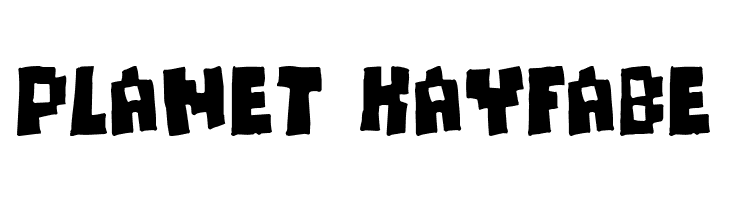
A tall, narrow font with high contrast and a modern, sophisticated style.
A decorative, dotted font with a digital, pixelated style.
A bold, expressive font with jagged, graffiti-like edges.
A bold, brush-style font with an energetic and handcrafted appearance.
A playful, handwritten font with bold, rounded strokes and a lively appearance.
A bold, jagged, hand-drawn style with a graffiti-like appearance.
A playful, smiley-adorned decorative font perfect for fun and engaging designs.
Hand-drawn, playful display font with a cartoonish vibe.
A playful collection of expressive character icons with bold outlines.
A bold, brush-like font with jagged strokes and an adventurous, dynamic style.
A playful, bold, and hand-drawn font with a cartoonish style.
A bold and dynamic font with a playful, energetic style.
A bold, fiery font with jagged, distressed characters.
A bold, fiery font with jagged edges, perfect for dramatic designs.
A bold, angular font with a dynamic, slanted design.
A bold, hand-drawn font with a playful and sketch-like appearance.
A bold, geometric font with a 3D effect, ideal for retro-themed projects.
A modern, slanted font with elongated characters and consistent stroke width.
A bold, brush-style script font with dynamic and expressive strokes.
A bold, hand-painted font with a textured, artistic style.
A bold, hand-drawn font with a rough, artistic texture.
A bold, decorative font with a hand-drawn, textured style.
A playful, hand-drawn style with a rough, textured appearance.
A bold, expressive handwritten font with dynamic strokes and a playful appearance.
A bold, textured font with a rustic, hand-drawn appearance.
A bold, playful font with a hand-drawn, pixelated style.
A bold, blocky font with rugged, irregular outlines and a distinctive edgy style.
A playful, rugged font with a hand-carved, stone-like appearance.
A playful, stone-carved style font with bold outlines and rugged texture.
A playful and whimsical font with quirky, decorative letterforms.
A bold, geometric font with angular edges and a modern style.
A bold, playful font with quirky, irregular shapes and a hand-drawn feel.
A playful, hand-drawn font with bold, rounded characters and a whimsical style.